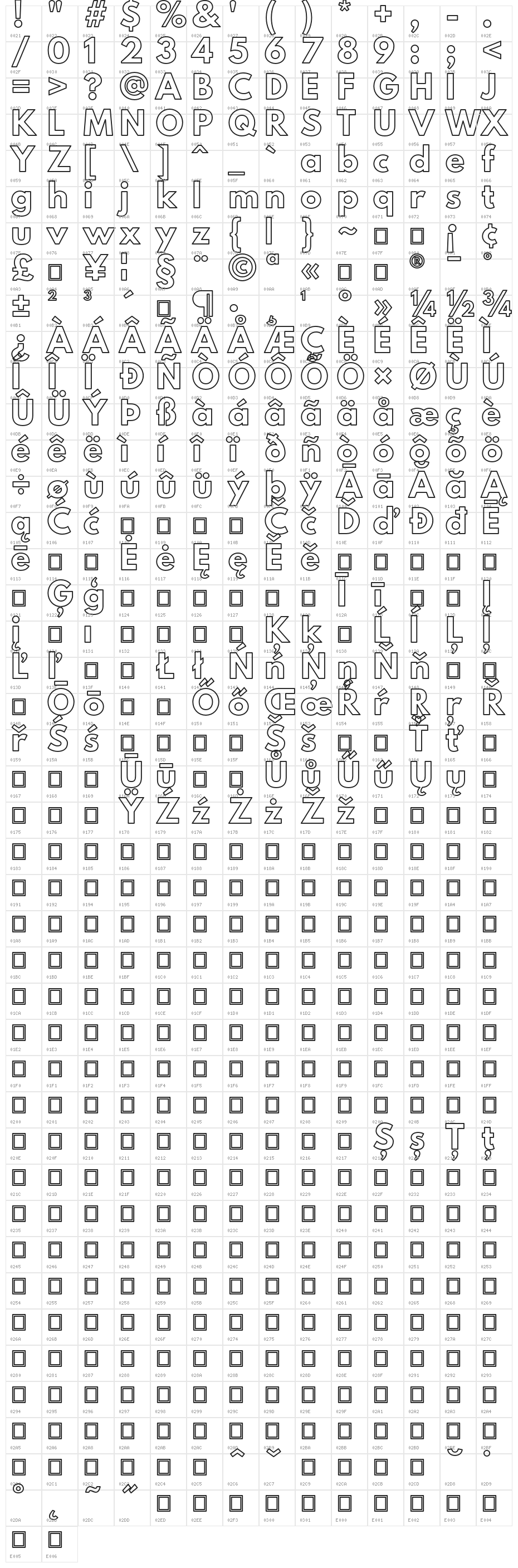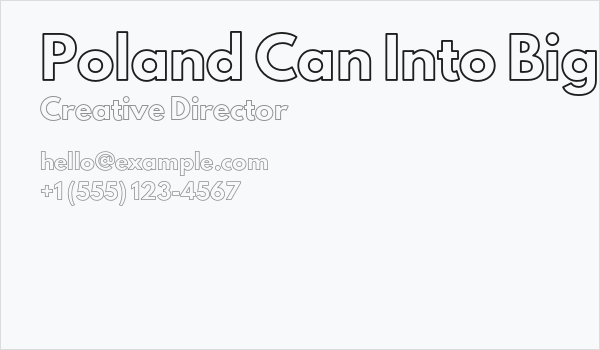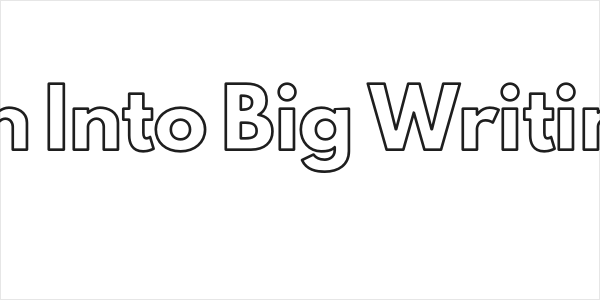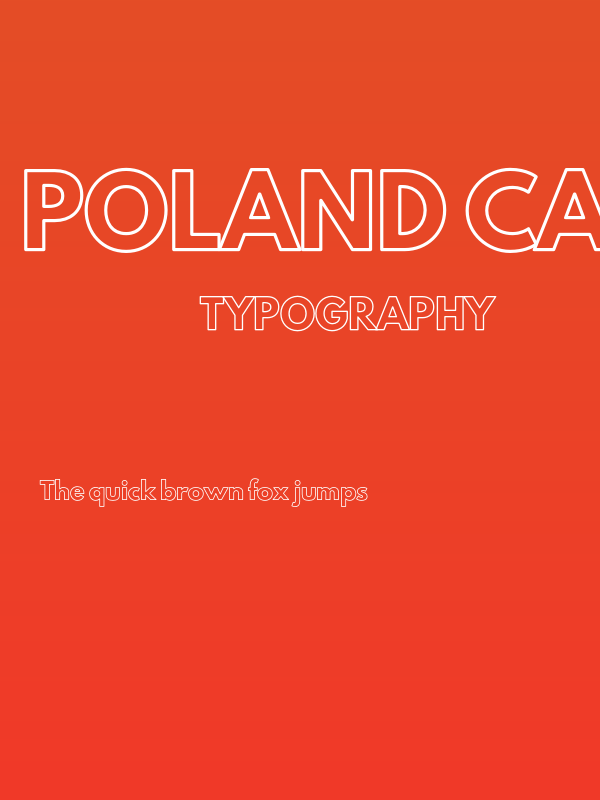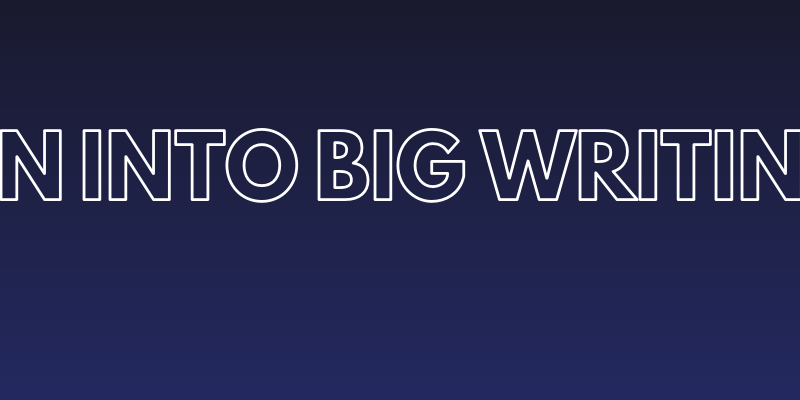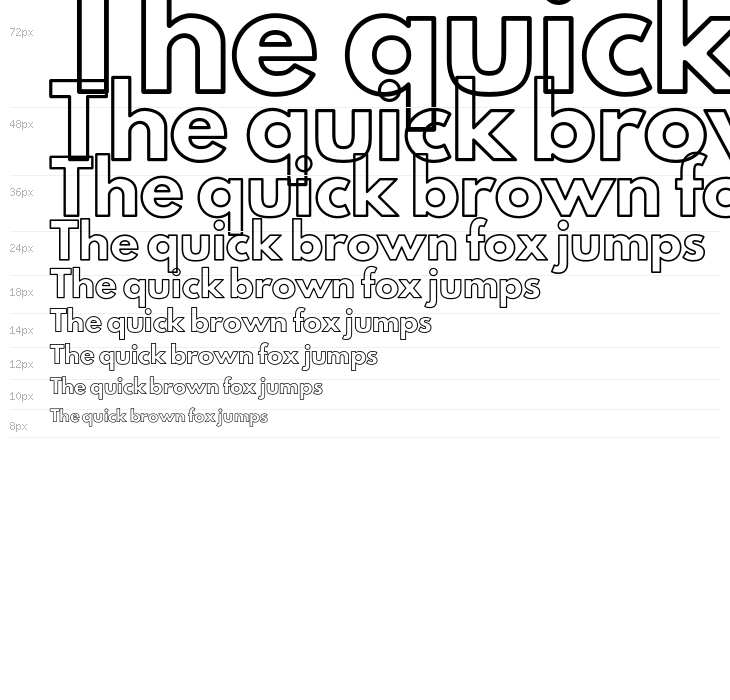
Poland Can Into Big Writings Outline Font
Poland Can Into Big Writings Outline Description
This font features a clean and modern outline style, characterized by its bold and geometric letterforms. The uppercase and lowercase letters maintain a consistent width, creating a harmonious and balanced appearance. The numerals are clear and legible, matching the overall aesthetic of the alphabet. Special characters are well-integrated, maintaining the same outline style that ensures uniformity across all glyphs. The font's design is versatile, suitable for various applications where a contemporary and eye-catching look is desired. Its outline nature makes it ideal for layering with colors or textures, adding depth and interest to any design project.
| Proposed Projects | Ideal for posters, headlines, logos, and any design requiring a striking and modern appearance. |